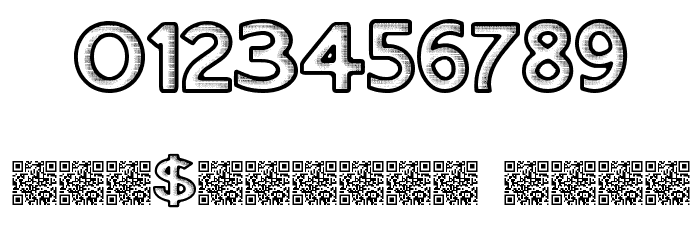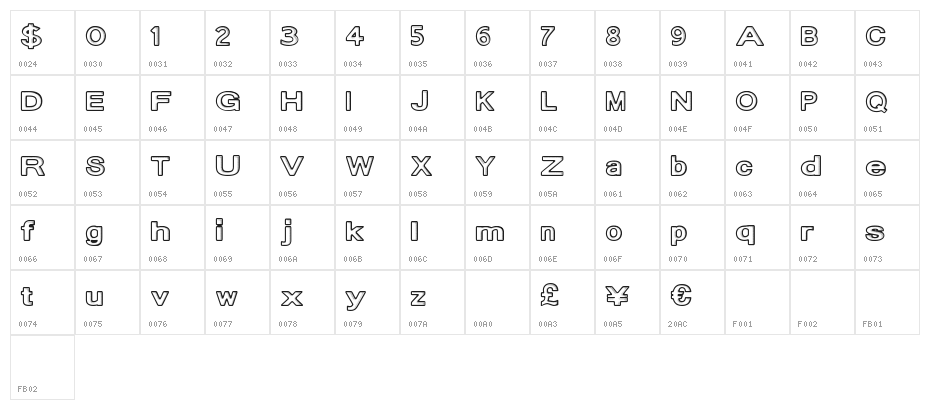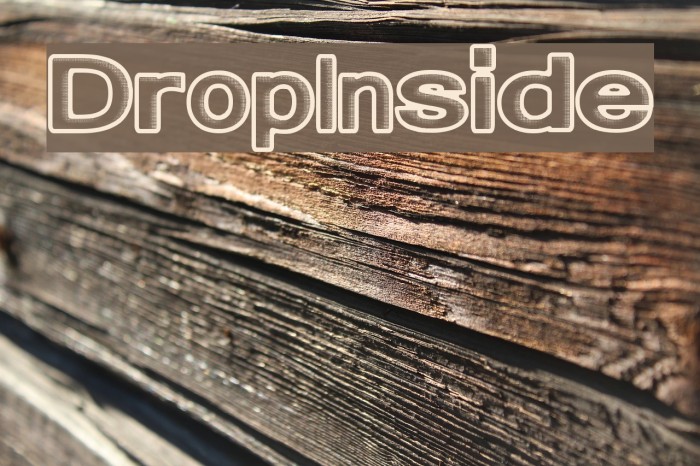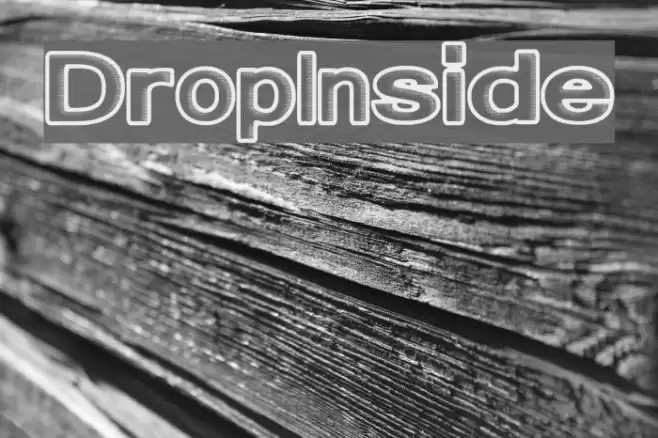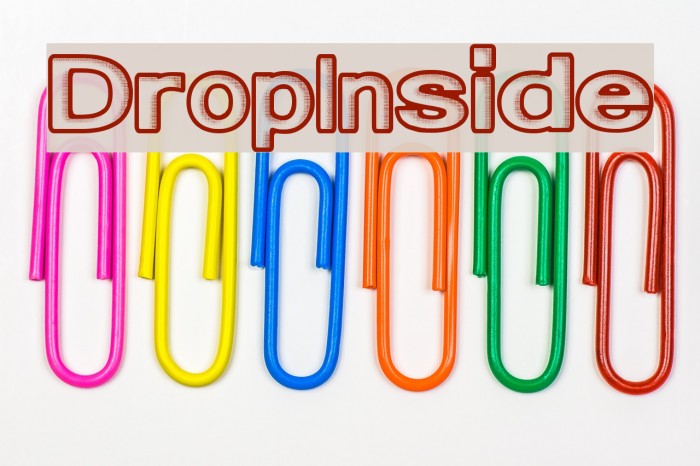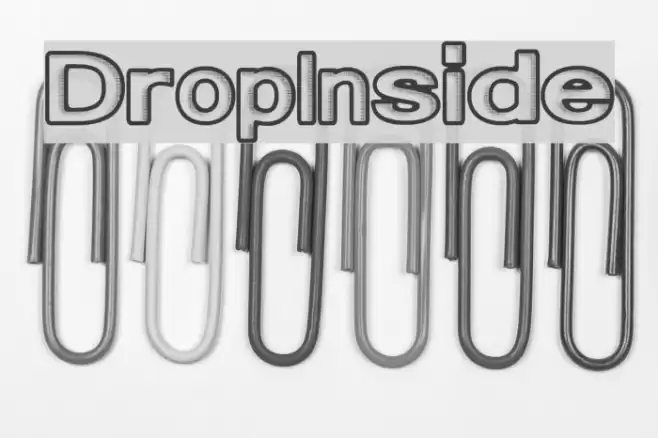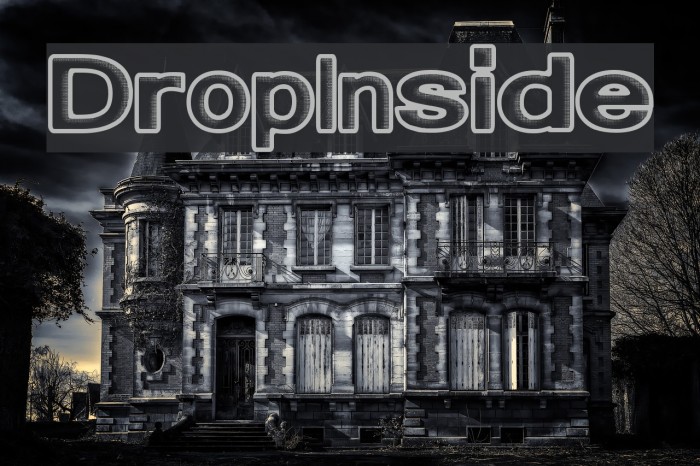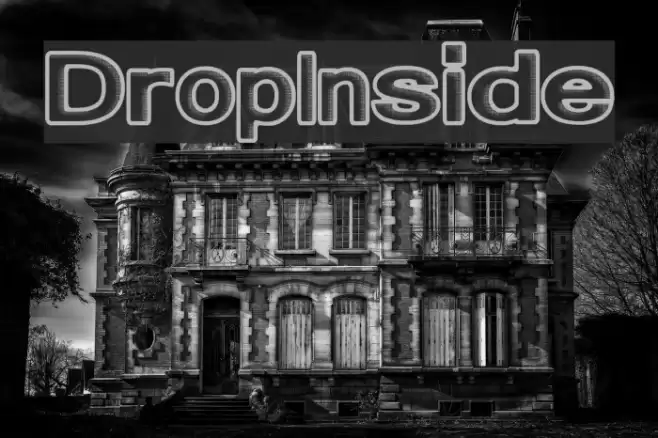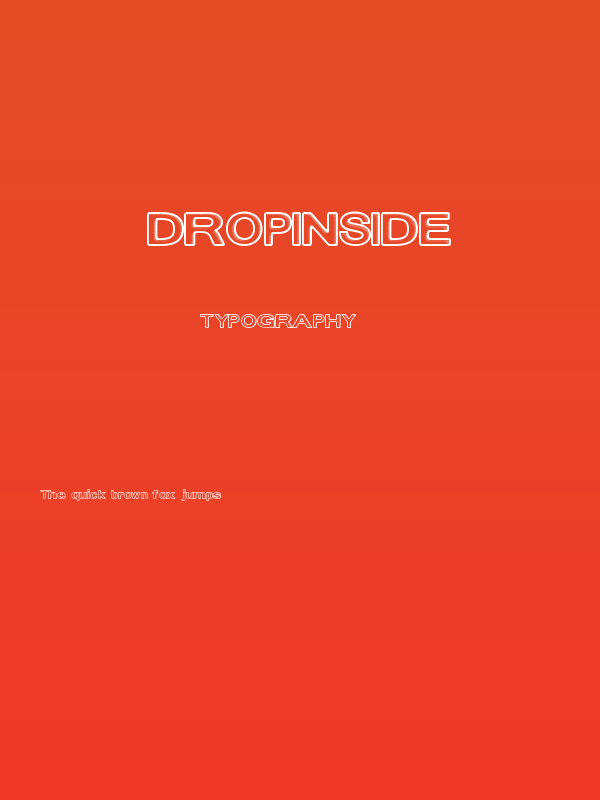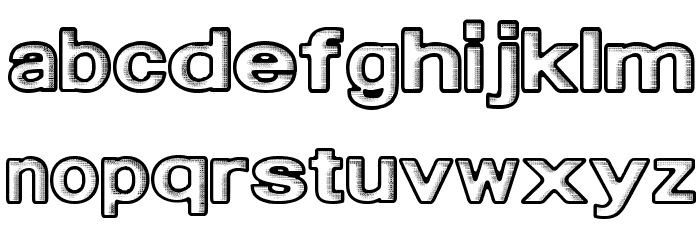
DropInside Font
DropInside Description
This font features a bold, outlined style with a modern and playful aesthetic. The characters are uppercase and lowercase letters, numbers, and a selection of special symbols. The design is characterized by its thick outlines and hollow interiors, creating a striking visual effect. The font maintains consistent proportions and spacing, ensuring readability while adding a decorative touch. Its unique style makes it suitable for eye-catching designs and creative projects.
| Proposed Projects | Ideal for posters, headlines, logos, and creative design projects that require a bold and decorative touch. |